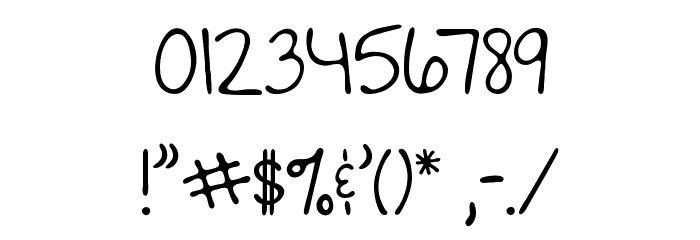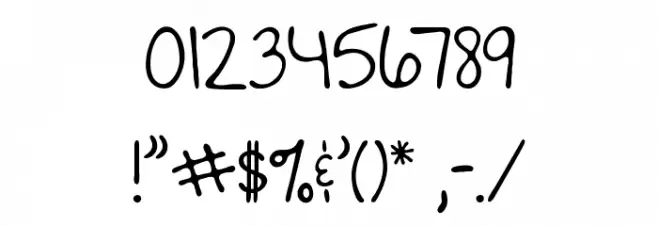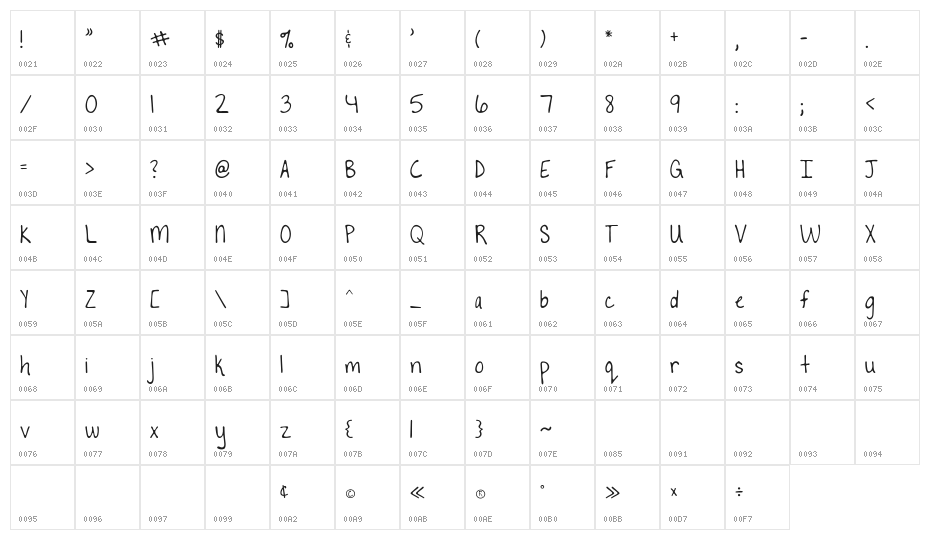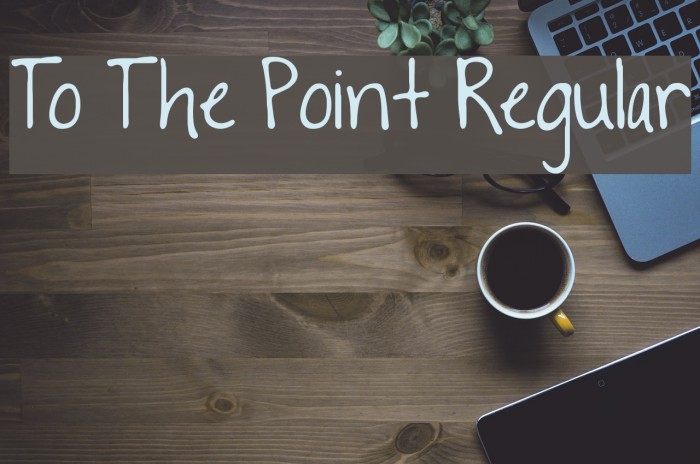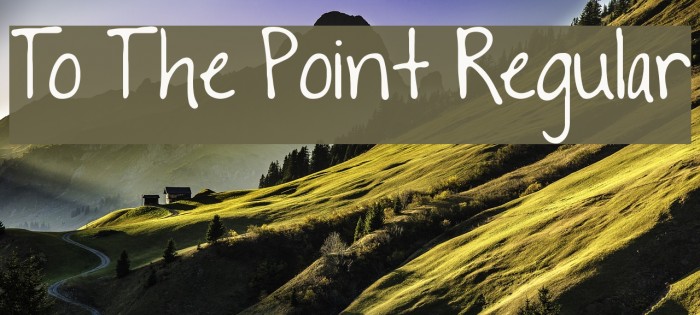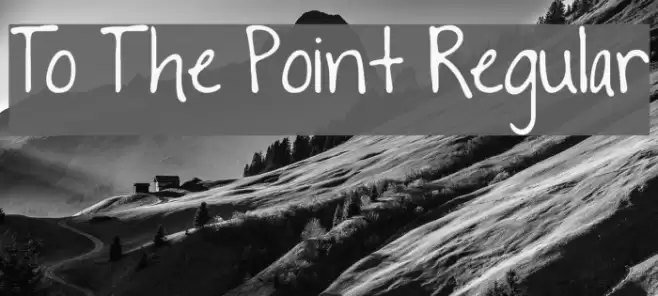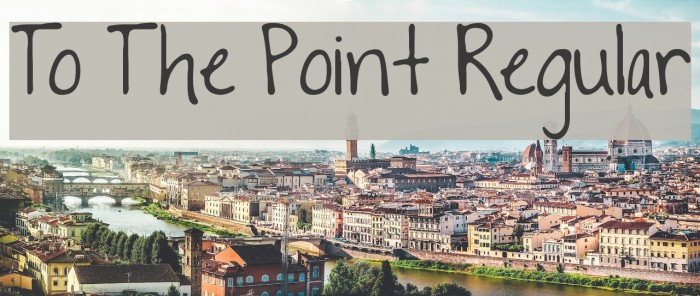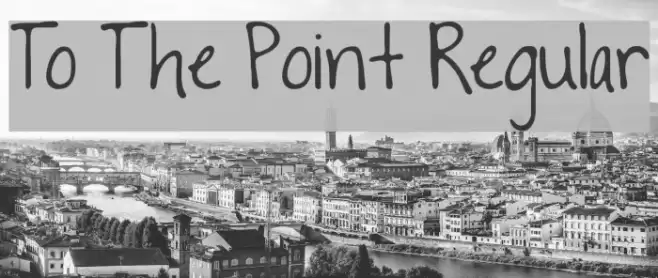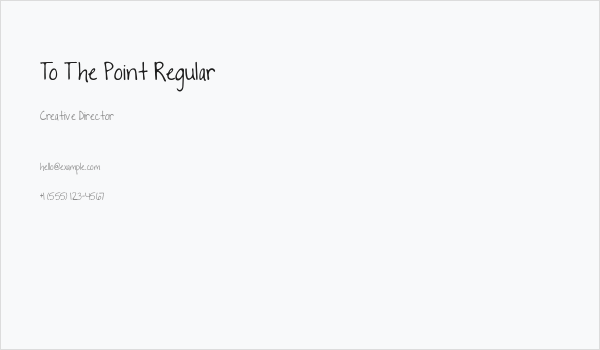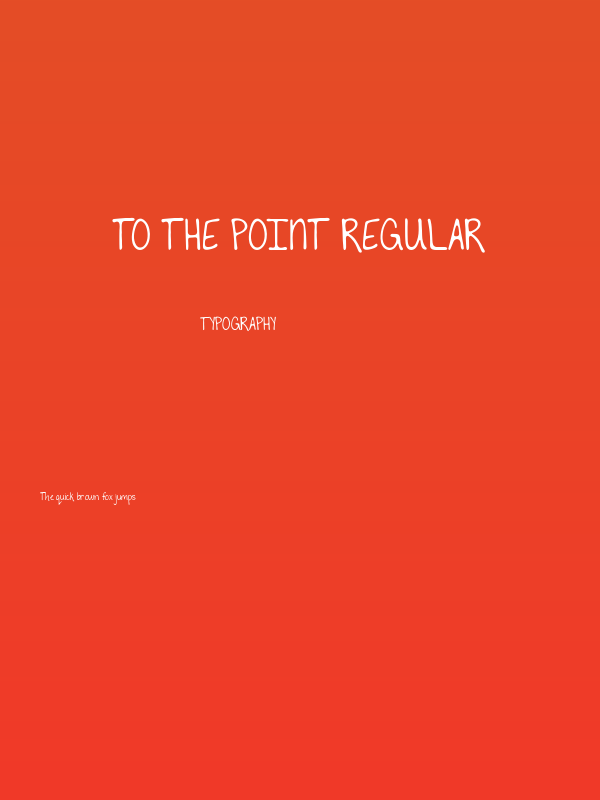
To The Point Regular Font
To The Point Regular Description
This font exhibits a playful and casual handwritten style, characterized by its rounded and slightly irregular letterforms. The uppercase and lowercase letters maintain a consistent flow, giving it a friendly and approachable appearance. The numerals and special characters are designed to complement the overall aesthetic, ensuring readability while maintaining the font's unique charm. The strokes are uniform in weight, contributing to a balanced and cohesive look across all characters. This font is versatile, suitable for projects that require a personal touch or a relaxed vibe.
| Use Case | Headlines, Informal text, Branding |
| Proposed Projects | Ideal for greeting cards, children's books, casual branding, and social media graphics. |